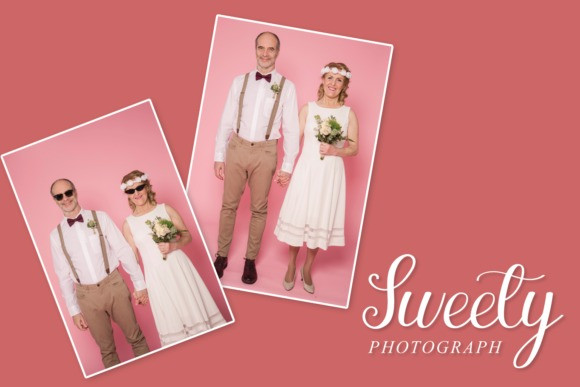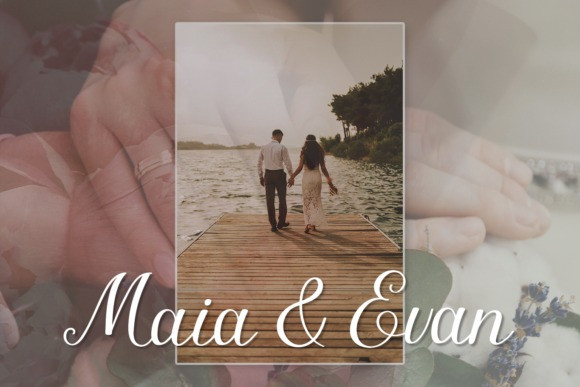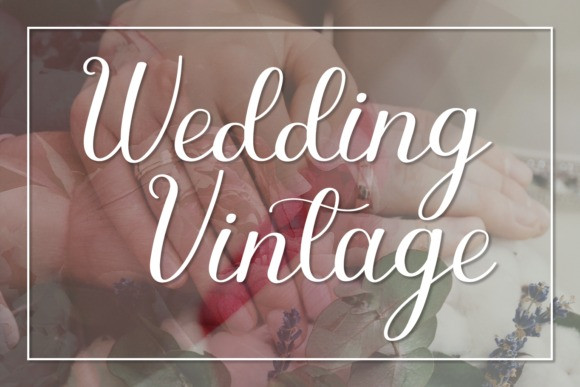
Wedding Vintage Typeface
Wedding Vintage Script Font is a chic, refined script font that emanates sophistication and elegance. Its stylish alternates and ligatures make this font the perfect match for any project.